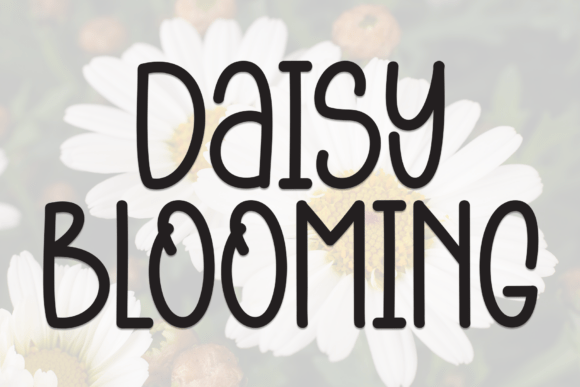
Daisy Blooming Font: The Perfect Addition to Your Design Projects
The world of typography is vast and diverse, with numerous font styles to choose from, each with its unique characteristics and uses. Among these, the Daisy Blooming font stands out for its casual yet neat display qualities, making it an excellent choice for designers looking to infuse warmth and clarity into their projects. In this article, we’ll delve into the features and benefits of the Daisy Blooming font, exploring how it can elevate your branding, headlines, and everyday designs.
Introduction to Daisy Blooming Font
Daisy Blooming is a thoughtfully designed font that strikes the perfect balance between casualness and neatness. Its clean structure and approachable style make it an ideal choice for a wide range of design applications. Whether you’re working on a branding project, crafting headlines, or creating everyday designs, Daisy Blooming is sure to bring a touch of warmth and clarity to your work.
Key Features of Daisy Blooming Font
- Clean Structure: The font boasts a clean and organized structure, ensuring that your text remains clear and easy to read.
- Approachable Style: With its friendly and approachable style, Daisy Blooming helps create a welcoming atmosphere in your designs.
- Balanced Letterforms: The font’s balanced letterforms are designed to offer excellent readability and charm, making every message feel genuine and inviting.
The Versatility of Daisy Blooming Font
One of the standout qualities of the Daisy Blooming font is its versatility. Its unique blend of casualness and neatness makes it suitable for a variety of design projects. Here are some of the areas where Daisy Blooming truly excels:
Applications of Daisy Blooming Font
- Branding: Use Daisy Blooming to create a strong and approachable brand identity that resonates with your audience.
- Headlines: The font’s clean and clear structure makes it perfect for crafting headlines that grab attention and convey your message effectively.
- Everyday Designs: From social media posts to flyers and brochures, Daisy Blooming is an excellent choice for everyday designs that require a touch of warmth and personality.
The Benefits of Using Daisy Blooming Font
Choosing the right font for your design project can significantly impact its overall success. Here are some benefits of incorporating Daisy Blooming into your designs:
Why Choose Daisy Blooming Font?
- Enhanced Readability: The font’s balanced letterforms and clean structure ensure that your text is easy to read and understand.
- Emotional Connection: Daisy Blooming’s approachable style helps create an emotional connection with your audience, making your message feel more genuine and inviting.
- Versatility: The font’s versatility allows you to use it across various design projects, from branding and headlines to everyday designs.
How to Use Daisy Blooming Font Effectively
To get the most out of the Daisy Blooming font, consider the following tips:
Tips for Effective Use
- Pair with Complementary Fonts: Experiment with pairing Daisy Blooming with complementary fonts to create visual interest and hierarchy in your designs.
- Adjust Font Sizes: Adjust the font size to suit the context and emphasis of your text, ensuring that your message is conveyed clearly and effectively.
- Use Color Wisely: Choose colors that align with your brand identity and design aesthetic, using Daisy Blooming to add a pop of personality to your text.
In conclusion, the Daisy Blooming font is a valuable addition to any designer’s toolkit. Its unique blend of casualness and neatness, combined with its clean structure and approachable style, make it an excellent choice for a wide range of design projects. By incorporating Daisy Blooming into your designs, you can enhance readability, create an emotional connection with your audience, and add a touch of warmth and personality to your work.
Final Thoughts
Whether you’re a seasoned designer or just starting out, Daisy Blooming is a font that can help you achieve your design goals. So why not give it a try and see how it can elevate your branding, headlines, and everyday designs?